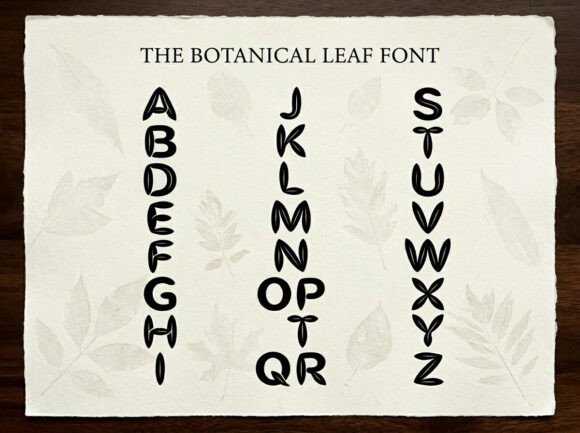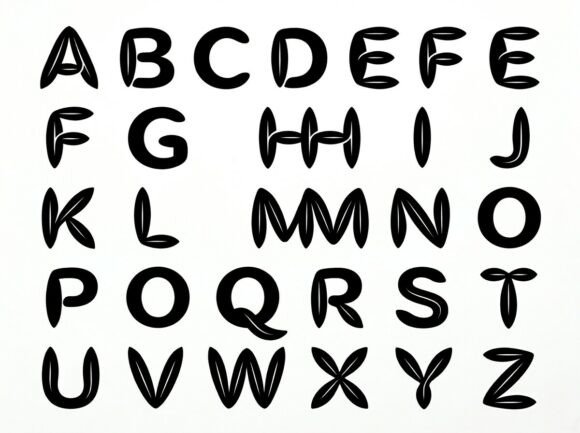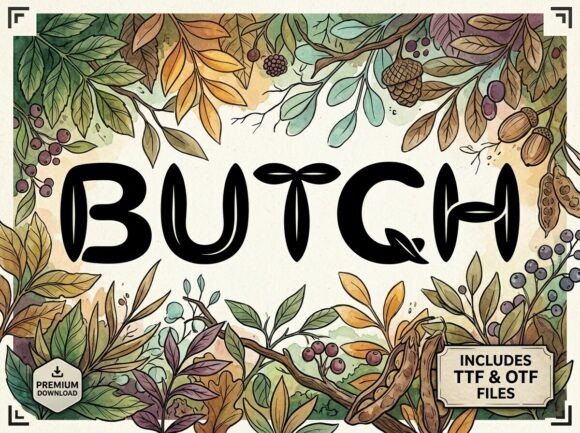
Introducing Butch Font: The Ultimate Avant-Garde Display Typeface
In the world of typography, a new star has emerged: Butch Font. This revolutionary display font is engineered to be the focal point of any composition, making it perfect for designers and crafters who refuse to blend in. With its commanding visual personality and unique artistic flourishes, Butch Font is set to elevate your designs to new heights.
What Makes Butch Font Stand Out?
Butch Font is an avant-garde decorative display font that boasts a strong, artistic soul. Its high-end, polished finish makes it suitable for luxury packaging, experimental editorial layouts, and a wide range of design applications. The font’s unique character is defined by its intricate craftsmanship, making each letter a standalone work of art.
Ideal Use Cases for Butch Font
Butch Font is perfect for a variety of design projects, including:
- High-impact headlines: Make a statement with Butch Font’s bold, attention-grabbing letters.
- Signature logos & branding: Create a lasting impression with a custom logo that exudes confidence and creativity.
- Conceptual packaging: Elevate your product packaging with a font that screams luxury and sophistication.
- Poster & social media design: Stand out on social media and create eye-catching posters with Butch Font’s unique character.
Important Note: All-Caps Display Typeface
Please note that Butch Font is an all-caps (uppercase only) display typeface. By omitting lowercase characters, the designer has focused entirely on the intricate craftsmanship of every individual letter, ensuring each one acts as a standalone work of art. This unique approach allows for a level of detail and precision that would be impossible with traditional fonts.
Why Choose Butch Font?
In a world where design is king, Butch Font offers a unique opportunity to elevate your brand and make a lasting impression. With its avant-garde style and high-end finish, this font is perfect for:
- Designers: Looking for a unique font to add to their arsenal.
- Crafters: Seeking a font that will make their handmade products stand out.
- Brands: Wanting to create a bold, eye-catching visual identity.
Butch Font is a game-changing display typeface that is set to revolutionize the world of design. With its unique artistic flourishes, commanding visual personality, and high-end finish, this font is perfect for designers, crafters, and brands looking to make a statement. Whether you’re working on a luxury packaging project or an experimental editorial layout, Butch Font is the perfect choice.